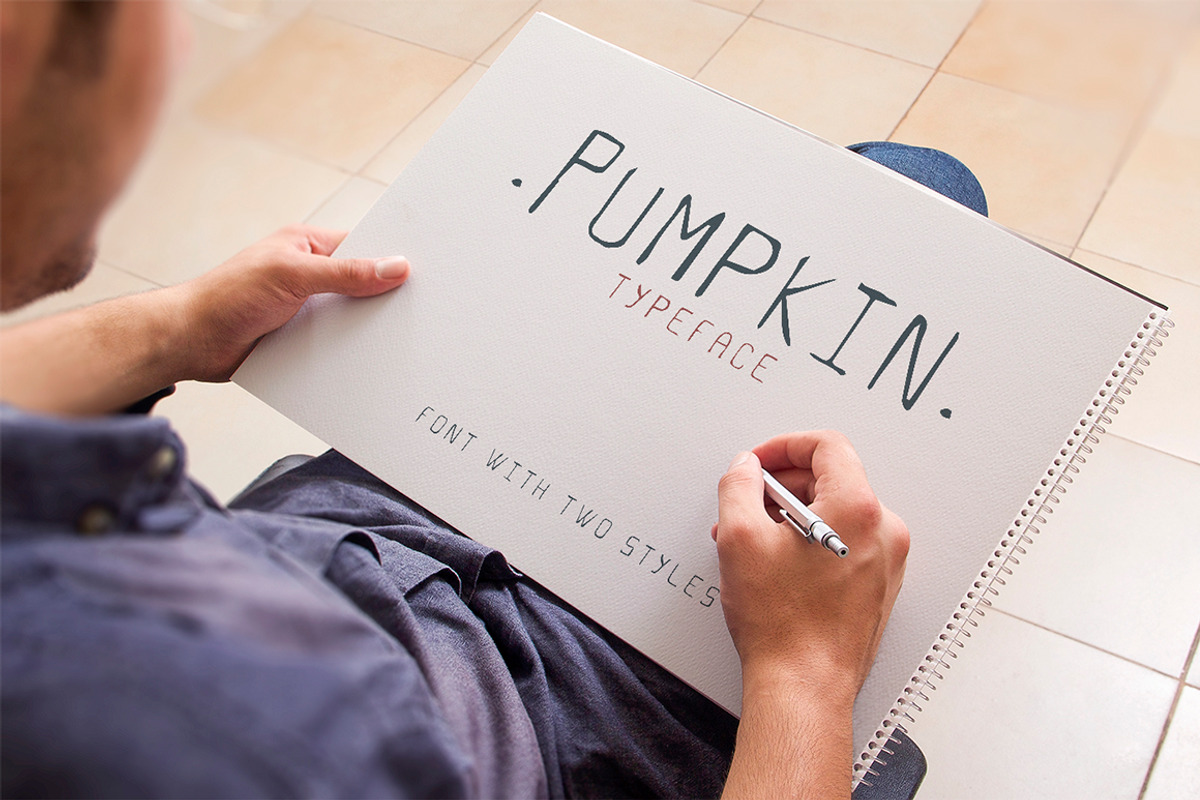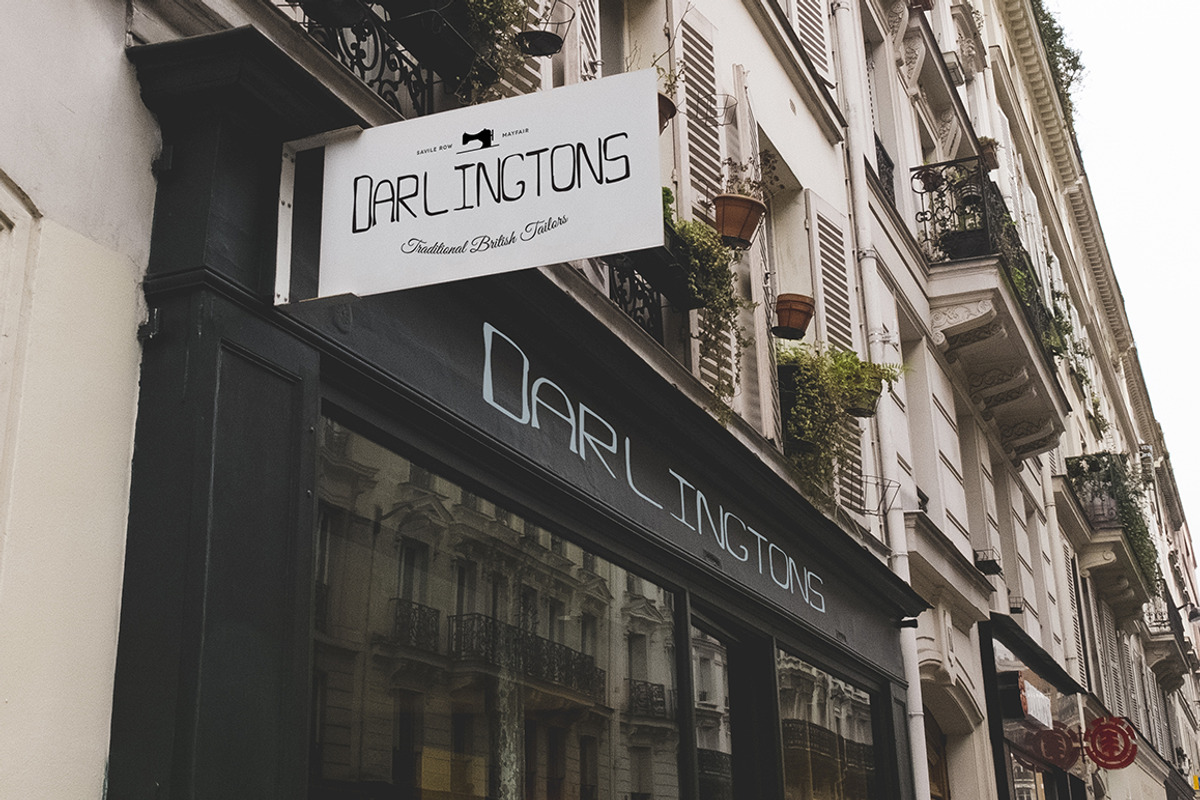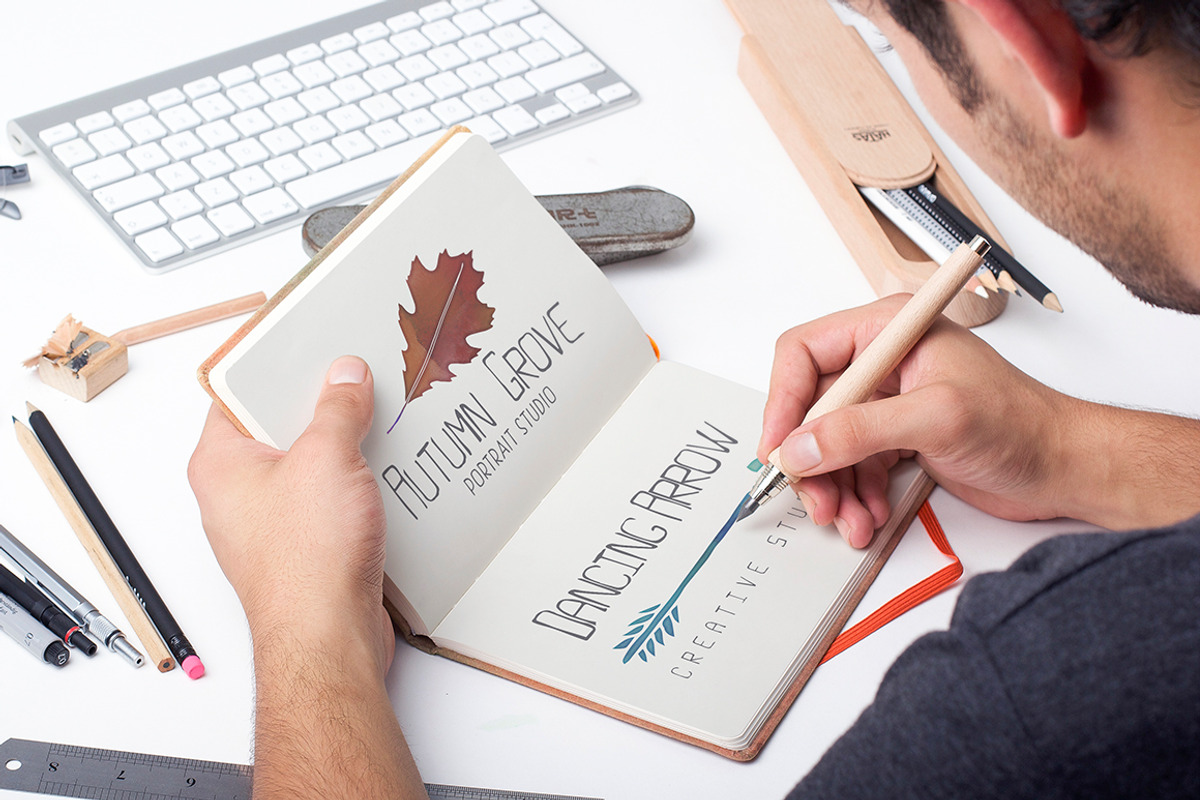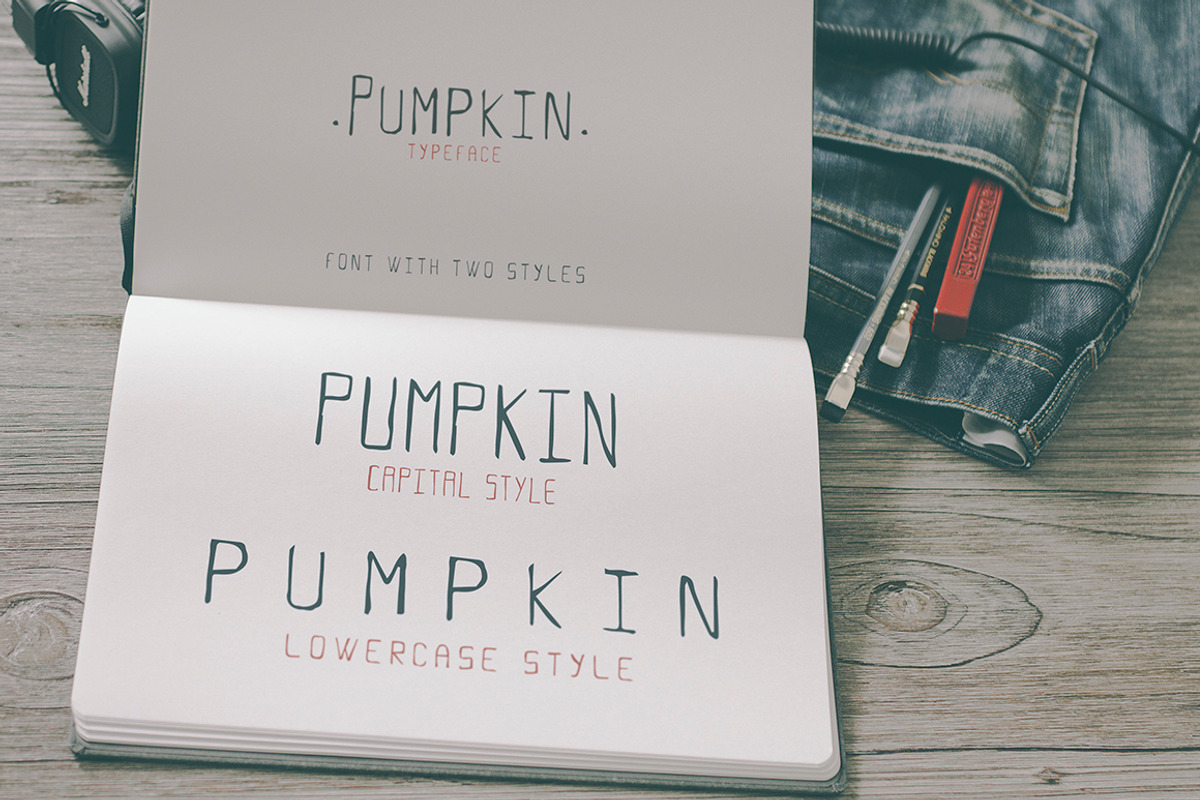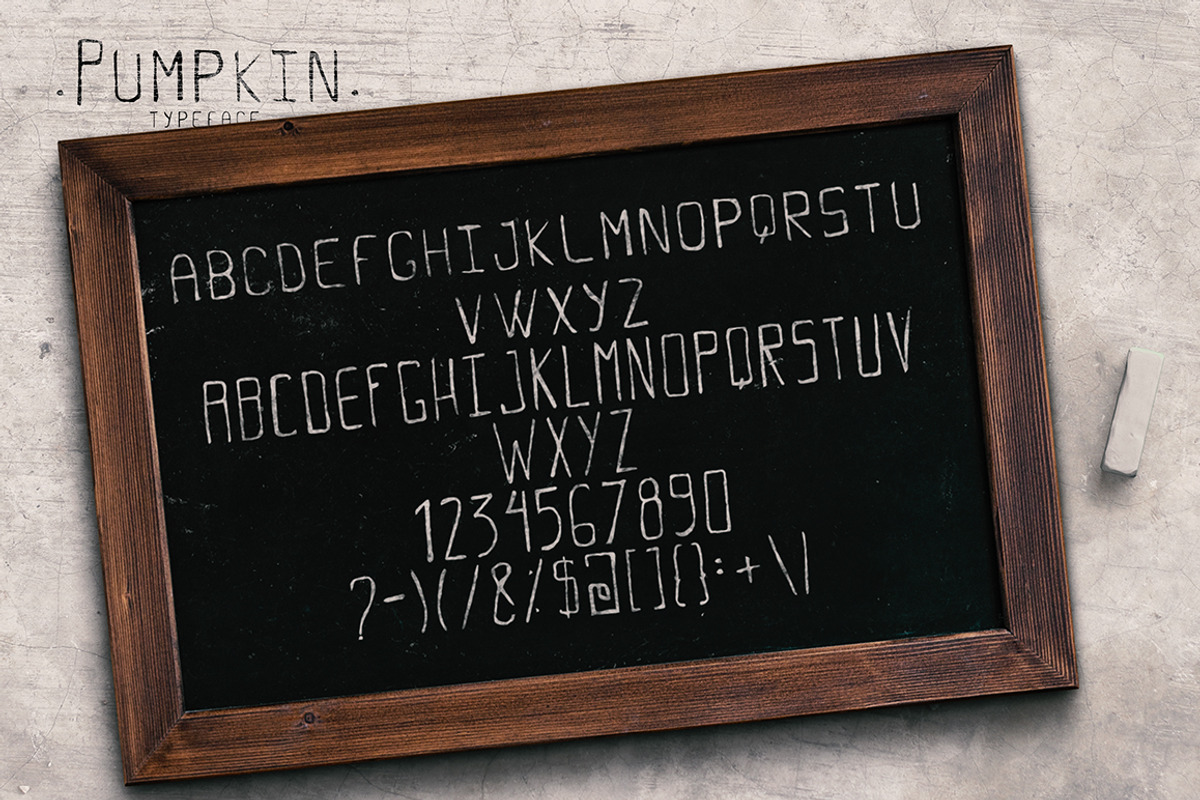
Pumpkin Script Typeface
Pumpkin Script Typeface by SmartDesigns is a font selected for branding, posters, packaging, typography.
- Pumpkin Typeface is an all uppercase font that comes with all letters and all numbers.
Why Pumpkin Script Typeface is worth a look
Pumpkin Script Typeface by SmartDesigns fits naturally into Branding, posters, packaging, typography.